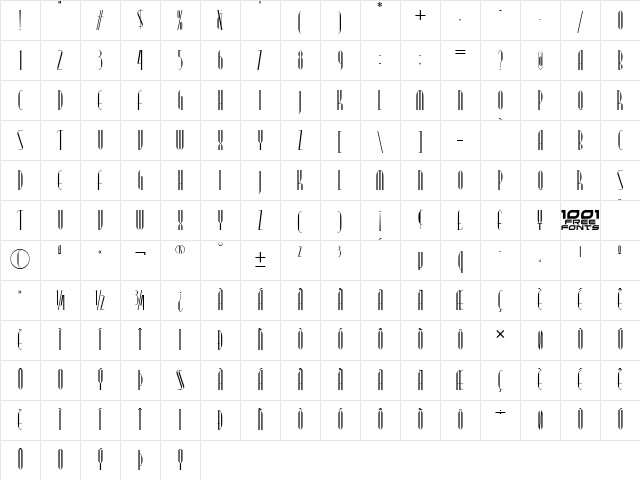
Complete Modern Typography NF Regular glyph index. Displaying only characters natively supported by Modern Typography NF Regular font.
Modern Typography NF is a composed and adaptable typeface that performs quietly and consistently across a wide range of design contexts.
Pro Tip: Use Modern Typography NF in both headline and body roles to test its range before committing to a single application.